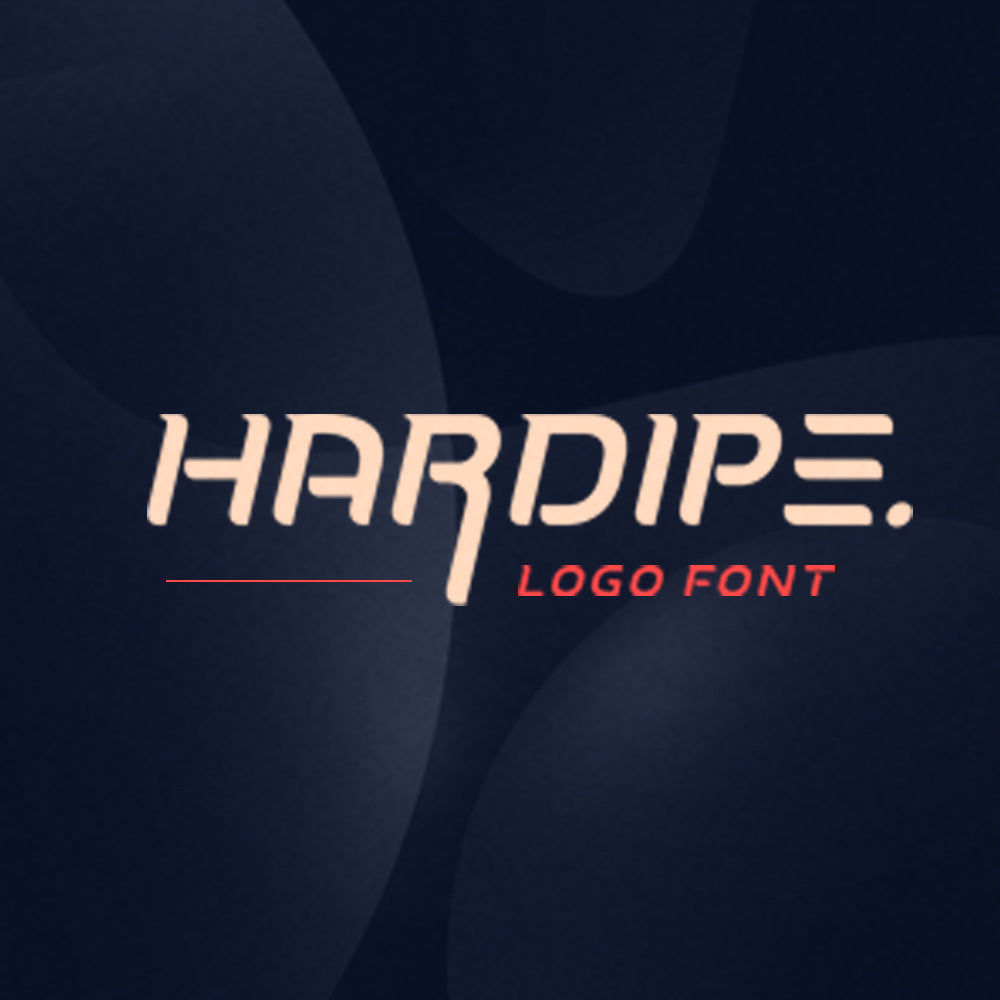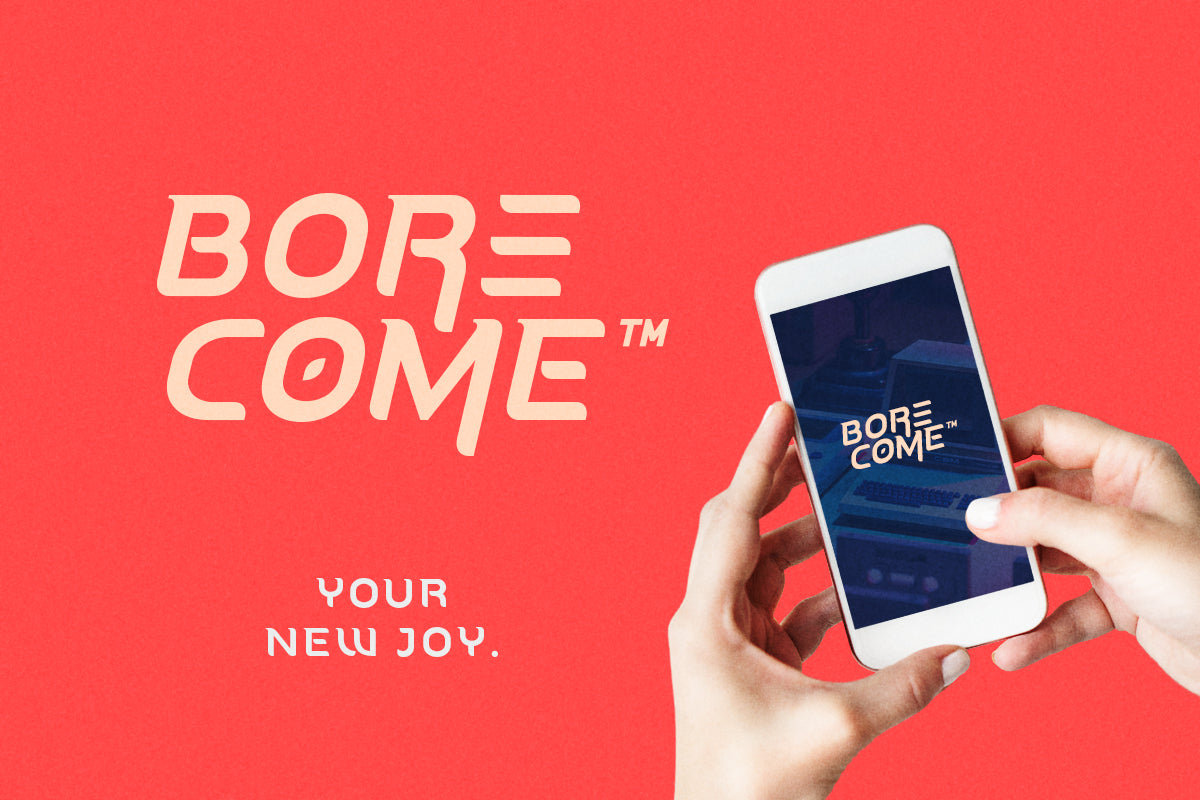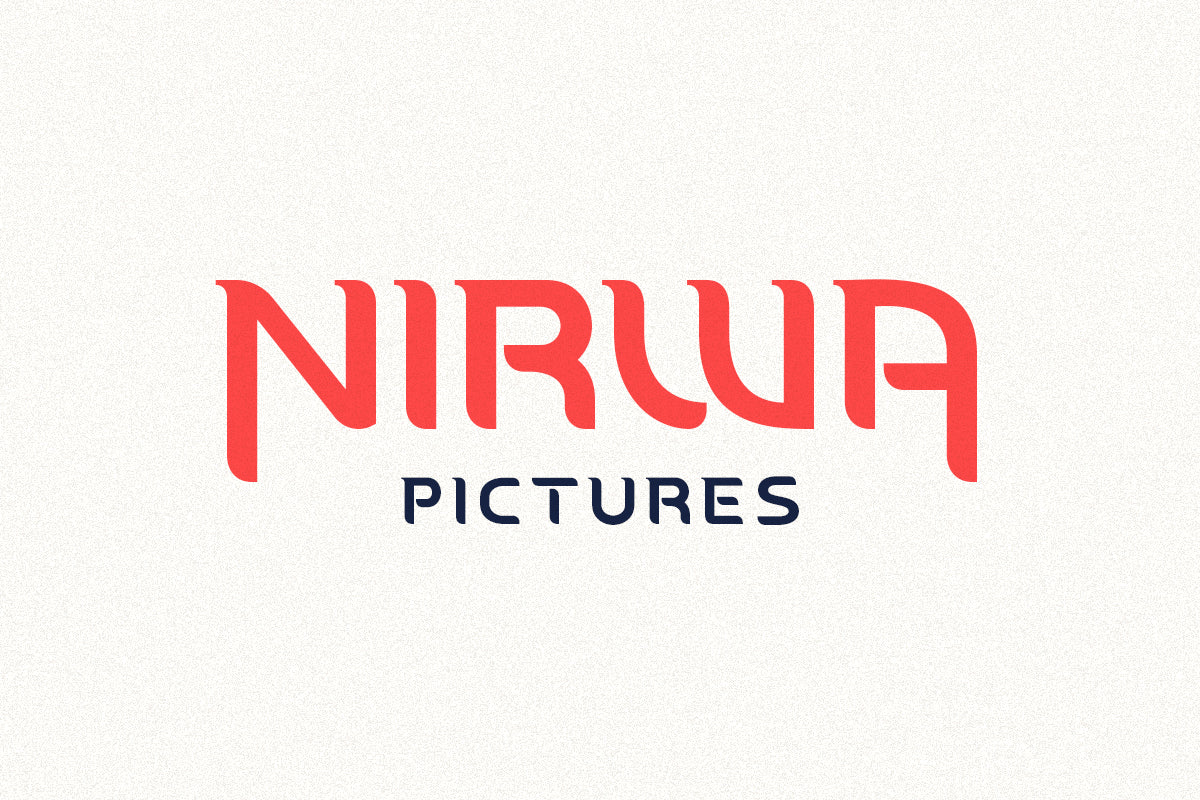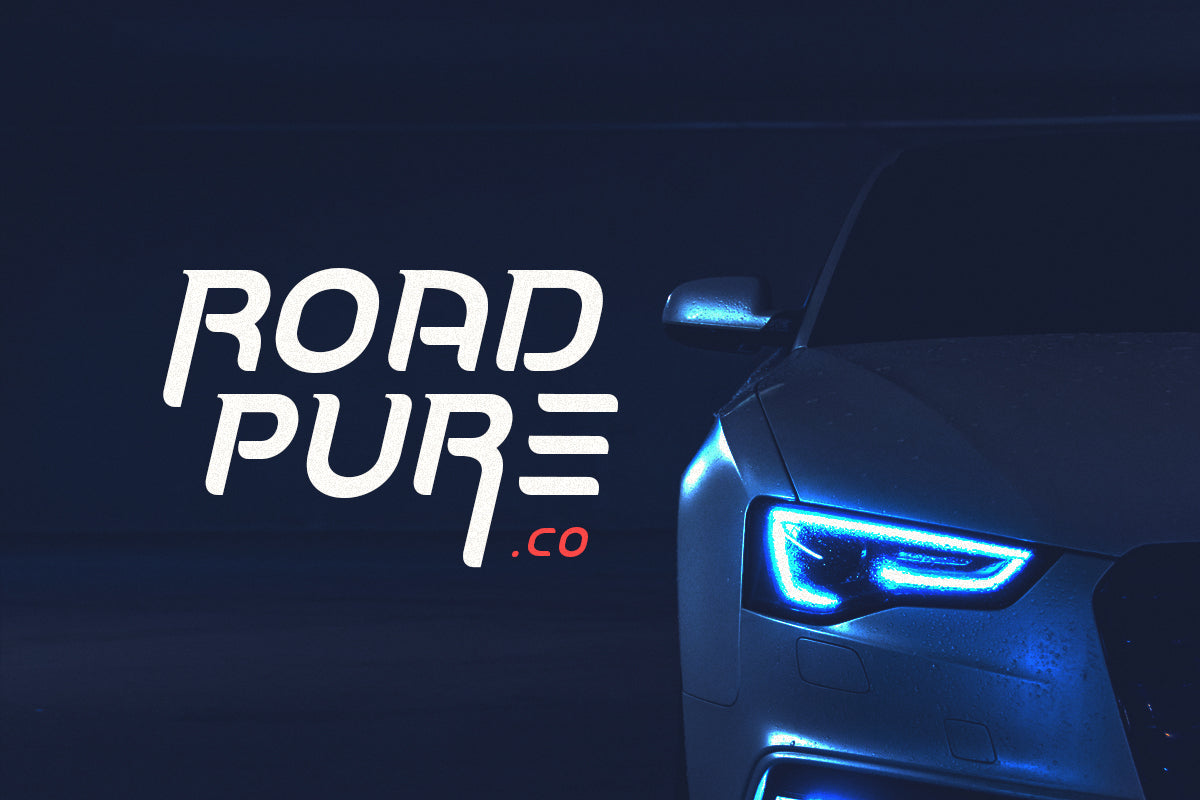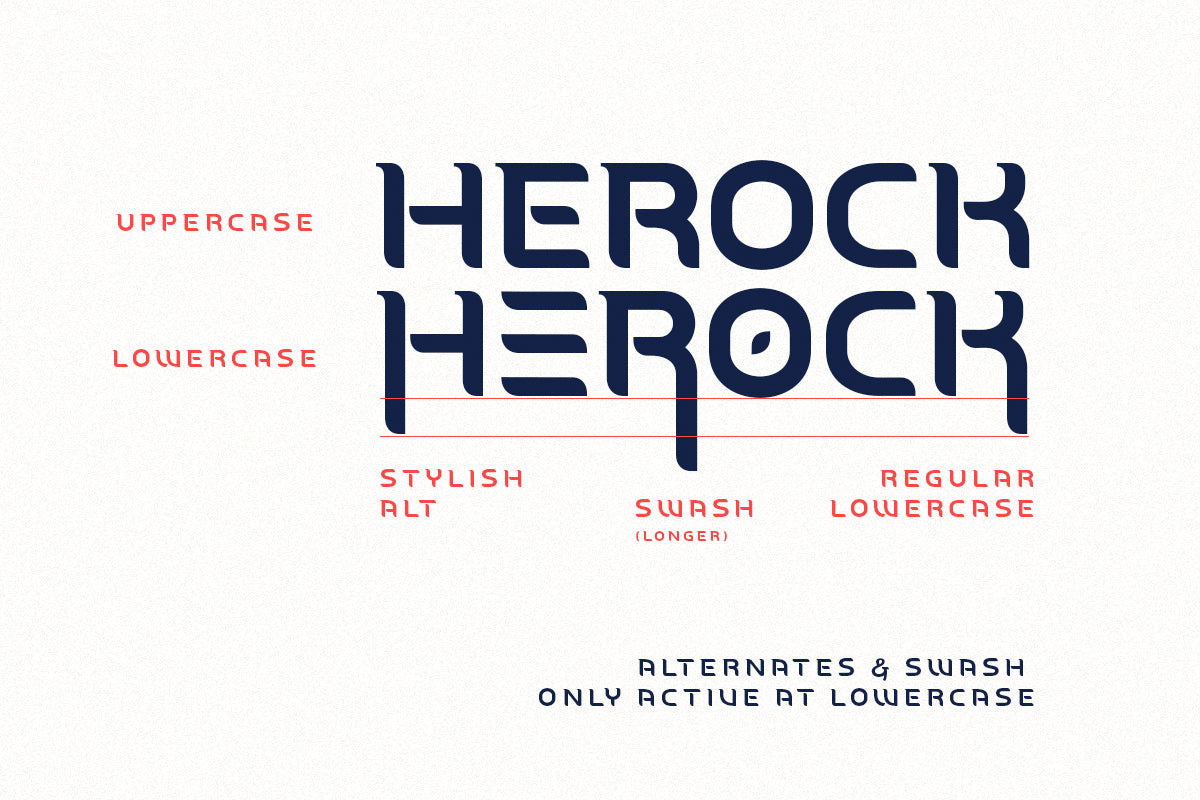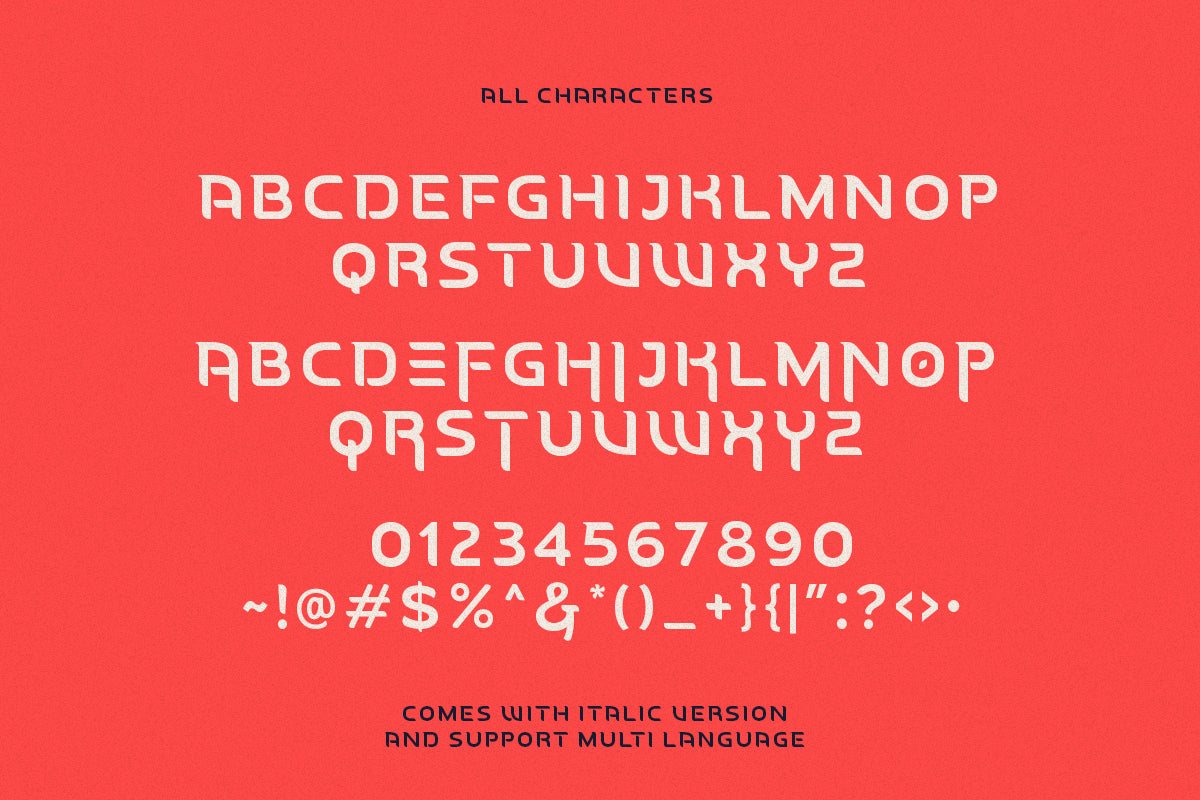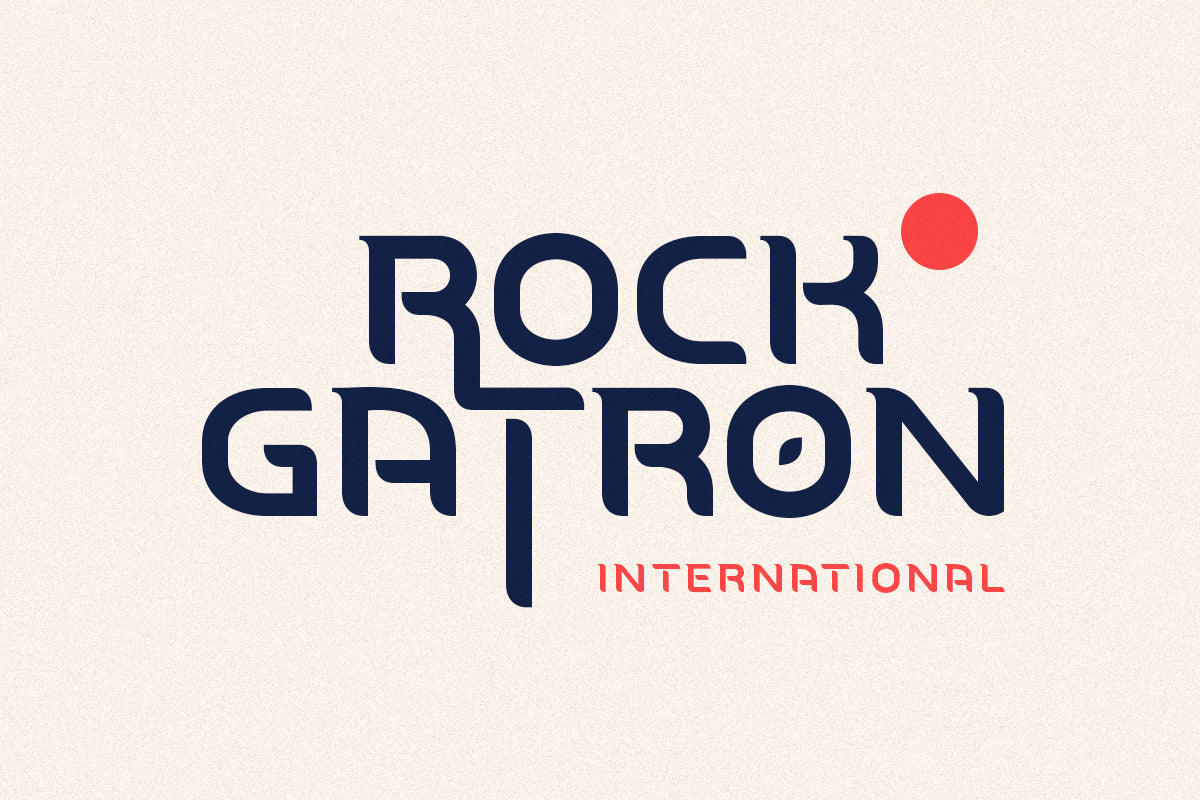
Hardipe - Grand Logo Font
Hardipe - Grand Logo Font is a modern logo font featuring unique lowercase characteristics that enhance simplicity and style. It includes an italic version, numbers, symbols, and multilingual support, allowing for versatile design options.